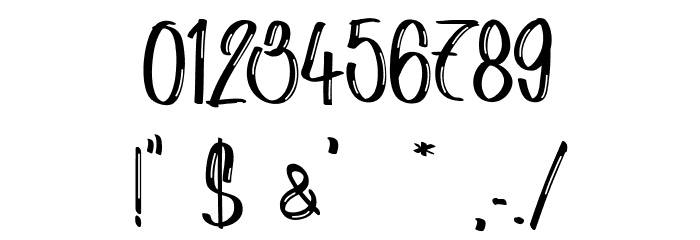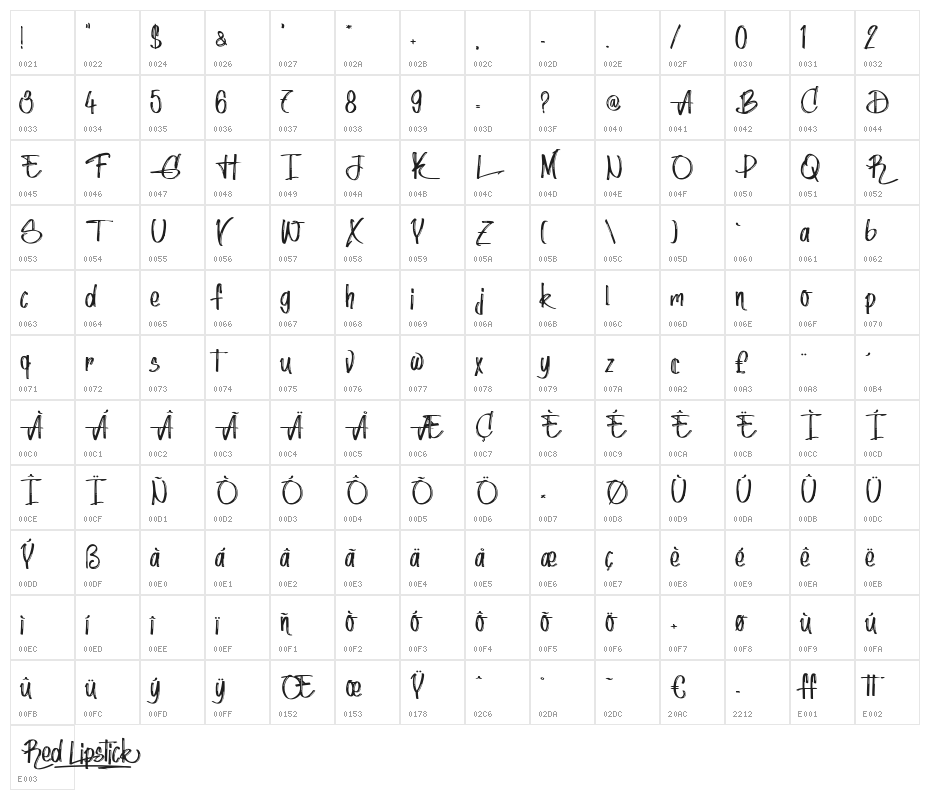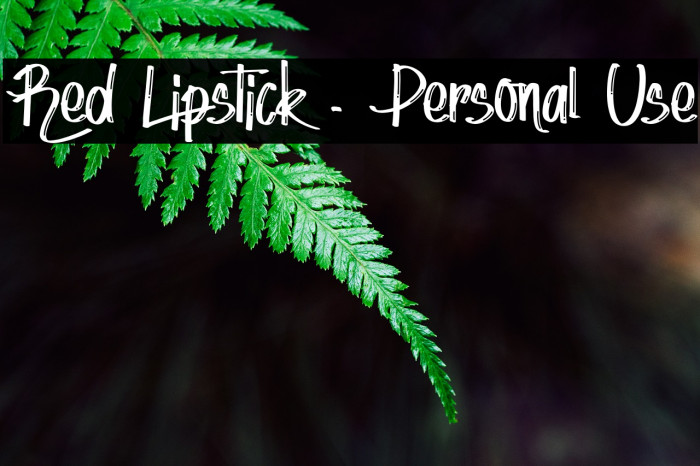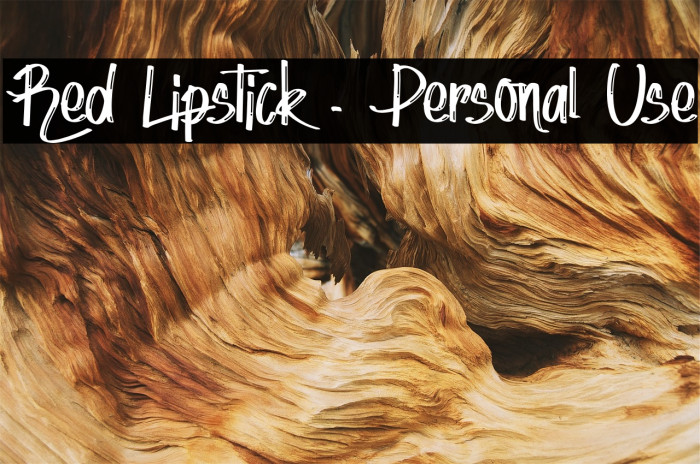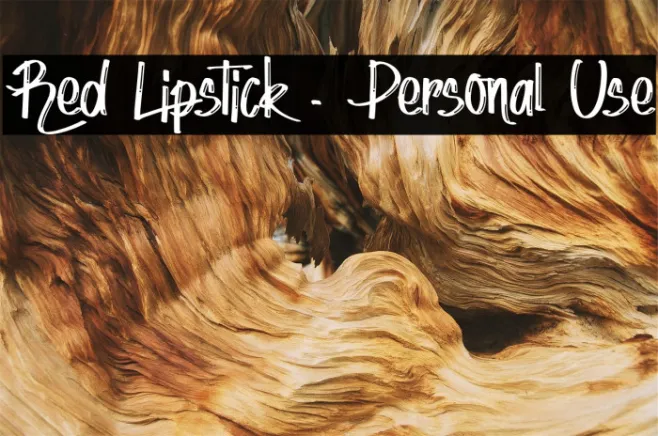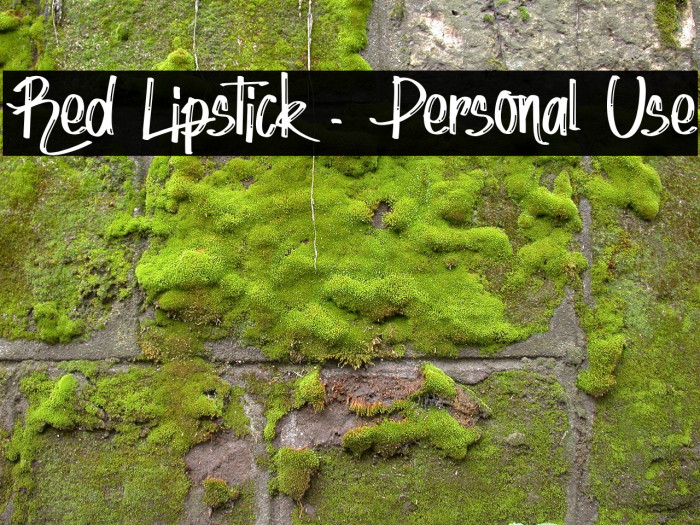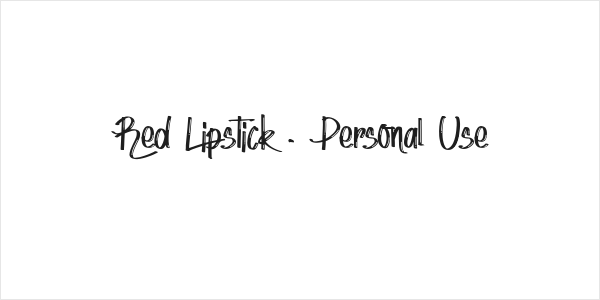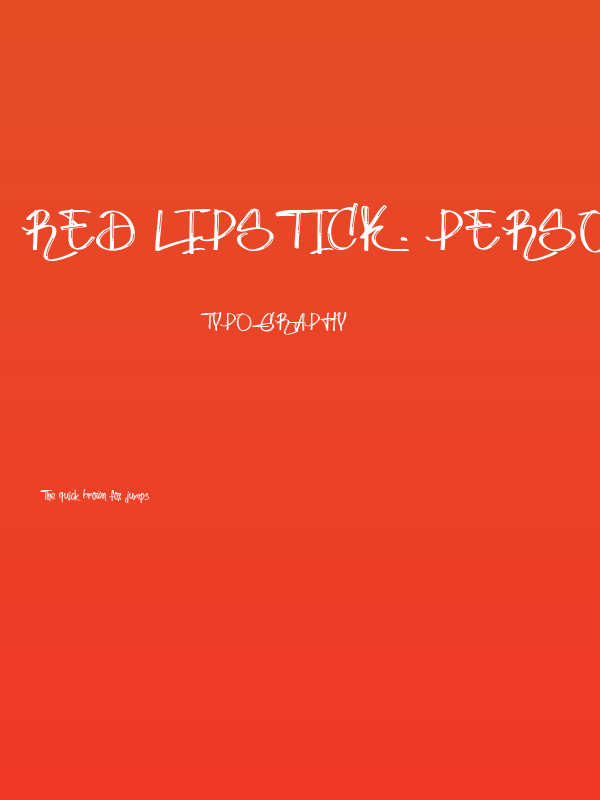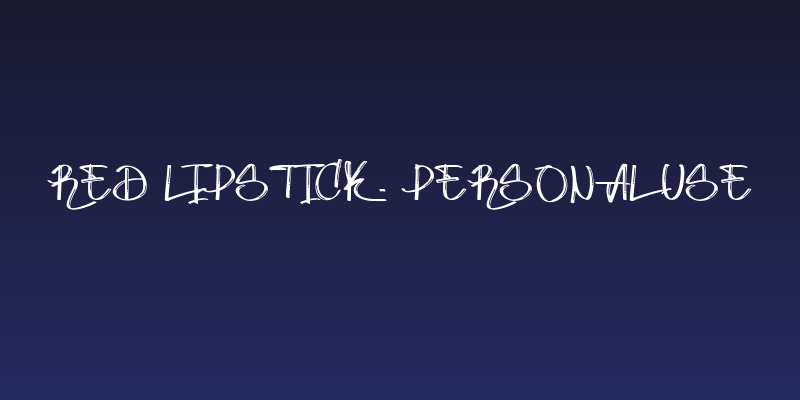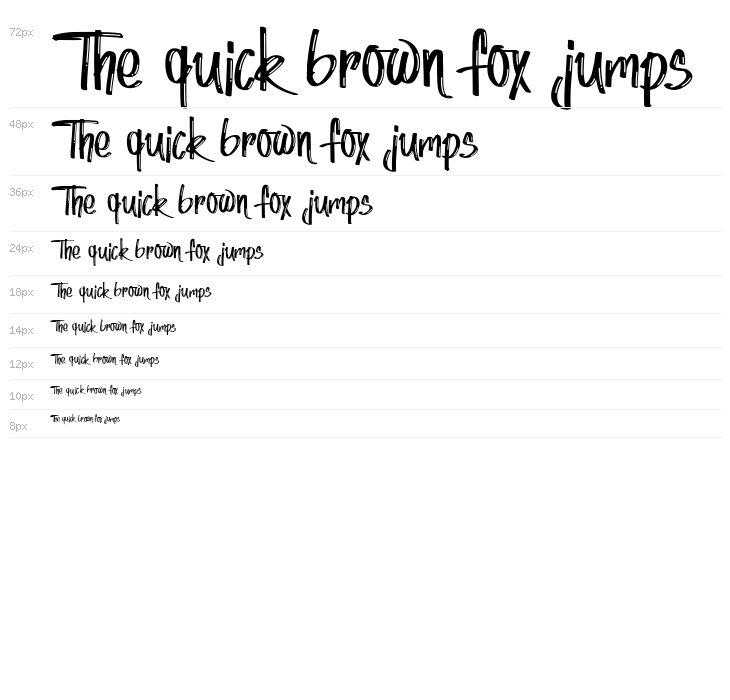
Red Lipstick - Personal Use Font
Red Lipstick - Personal Use Description
This font exudes a bold and expressive style, characterized by its handwritten appearance with a modern twist. The uppercase letters are dynamic and slightly slanted, giving a sense of movement and energy. The lowercase letters maintain a consistent flow, with some characters featuring unique loops and curves that add to the font's personality. Numbers are clear and distinct, while special characters are creatively designed to match the overall aesthetic. The strokes are varied in thickness, providing a medium contrast that enhances readability while maintaining a playful and artistic vibe.